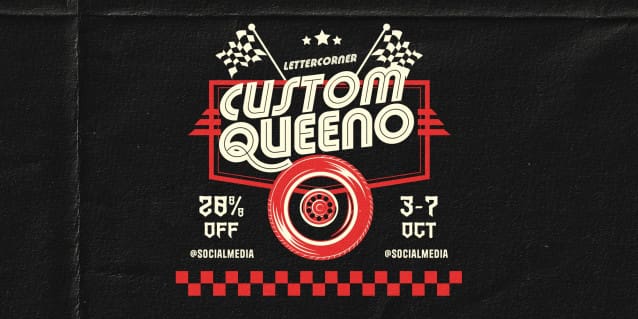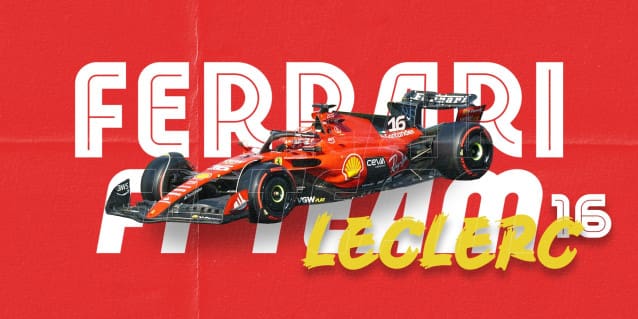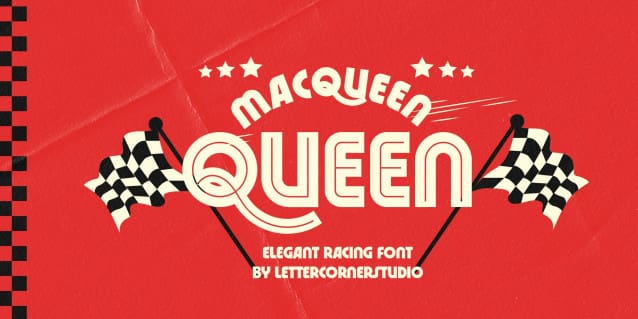
Macqueen Font
Macqueen Font an awesome sports fonts, modern cutouts, and dynamic slant. Ideal for fast car racing sports titles, running matches, cycling, automotive game logos and monograms or other modern dynamic text.
Macqueen Font compare favorably with legibility and size, creating the effect of power and speed. Designed as a fast and dynamic font, but with a slightly different font design, check it out and grab it right away.
Macqueen Also available for some lowercase characters that have swash, as well as multilingual. This can be accessed easily via opentype in Photoshop / Illustrator.